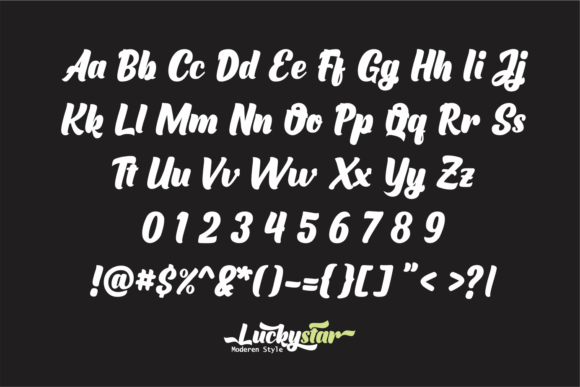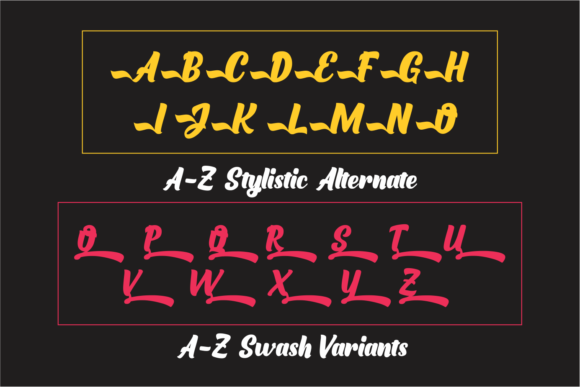
Introduction to Luckystar Font
Have you ever stumbled upon a design element that sparks creativity and sets your imagination ablaze? For designers, finding that perfect resource can be a game-changer. It’s the moment when a project transforms from a mere concept to a visually stunning masterpiece. This is exactly what the Luckystar Font promises to deliver.
As a strong display font, Luckystar Font is designed to make a statement. Its exciting character and high-quality design make it a valuable asset for any creative project. Whether you’re working on a logo, advertisement, or social media campaign, this font is sure to elevate your design to the next level. With its transparent background and free download option, it’s an easily accessible design resource that’s waiting to be unleashed.
Key Features of Luckystar Font
- Includes multiple font styles, each with a unique twist to suit different design needs.
Honest Review: Luckystar Font
I recently came across the Luckystar Font, and I’m excited to share my thoughts on this design resource. The first thing that caught my attention was the high quality of the font. It’s crisp, clear, and perfect for any creative project that requires a touch of elegance.
- High quality and crisp design
- No bold or italic versions available
Overall, I’m impressed with the Luckystar Font. It’s a great resource for designers who need a high-quality, customizable font for their creative projects. While it has some limitations, it’s a valuable addition to any design library.
The Luckystar Font is a high-quality design resource that offers a unique and creative touch to your projects. With its transparent background, this font is perfect for designers who want to add a personal touch to their work.
To get the most out of the Luckystar Font, try experimenting with different font sizes, colors, and combinations. You can also use it in conjunction with other design elements to create a unique and eye-catching design.
The Luckystar Font is perfect for designers who want to add a creative touch to their work. Some common use cases include:
- Print and digital advertisements